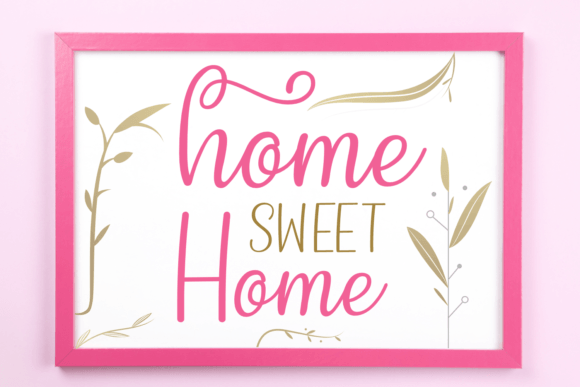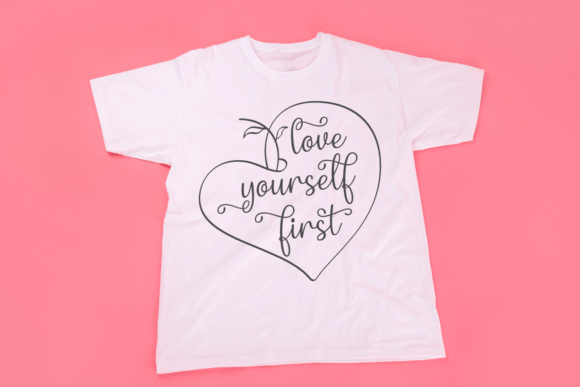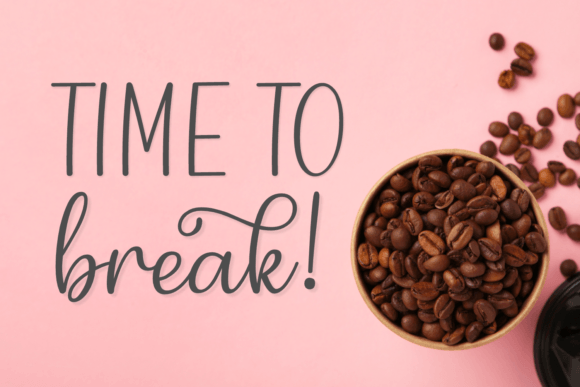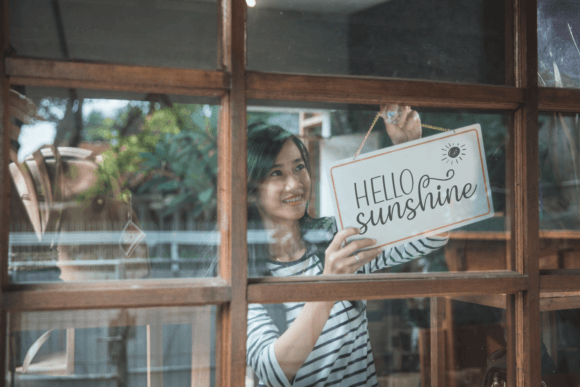
Sweety Font
About Sweety Font
Sweety font is a beautifully crafted and romantic script typeface designed to bring elegance and charm to any creative project. This font stands out with its smooth flowing curves and delicate strokes, making every design feel personal and heartfelt. Whether you’re working on logos, wedding invitations, quotes, or branding materials, Sweety font adds a warm, graceful touch that elevates your typography to the next level.
Elegant and Romantic Design
Sweety font captures the essence of romance through its beautifully designed letterforms. Its flowing script style, combined with finely crafted swashes and glyphs, provides a unique, graceful appearance. This font is perfect for projects that require a soft yet sophisticated look. The balance between decorative elements and readability ensures your messages come through clearly while maintaining a delicate, artistic feel.
Versatile Uses of Sweety Font
This font is highly versatile and suitable for a wide range of design applications, including:
• Logo Design: Create eye-catching logos for fashion, beauty, and lifestyle brands that need a romantic and elegant vibe.
• Wedding Invitations: Convey love and with wedding invitations that truly stand out.
• Quotes and Greeting Cards: Add emotional depth and charm to your heartfelt messages and greeting cards.
• Branding and Packaging: Enhance product packaging and branding with a handcrafted look that with quality and style.
• Social Media and Advertising: Use Sweety font for social media posts, banners, and advertisements to create engaging and beautiful visuals.
Why Choose Sweety Font?
Choosing Sweety font means opting for a typeface that combines beauty with functionality. It offers an elegant and timeless aesthetic suitable for both modern and classic designs. Its high readability and balanced decorative features make it an excellent choice for professional and personal projects alike.
Tips for Using Sweety Font
• Pair Sweety with clean sans-serif fonts to create a balanced and modern look.
• Use swashes selectively to highlight initials, headings, or key phrases for extra emphasis.
• Experiment with soft, pastel, or metallic colors to complement the romantic feel of the font.
• Combine with floral or vintage elements to create stunning wedding or boutique designs.
In summary, Sweety font is a beautiful and romantic script that enhances your creative projects with grace and charm. Its smooth strokes, elegant swashes, and versatile application make it ideal for logos, invitations, quotes, wedding designs, and much more. With PUA it offers easy access to all its decorative features, empowering you to create stunning and memorable typography every time.